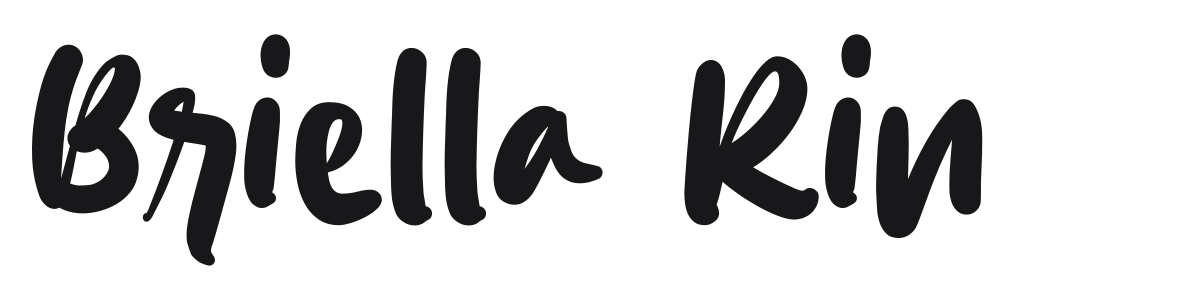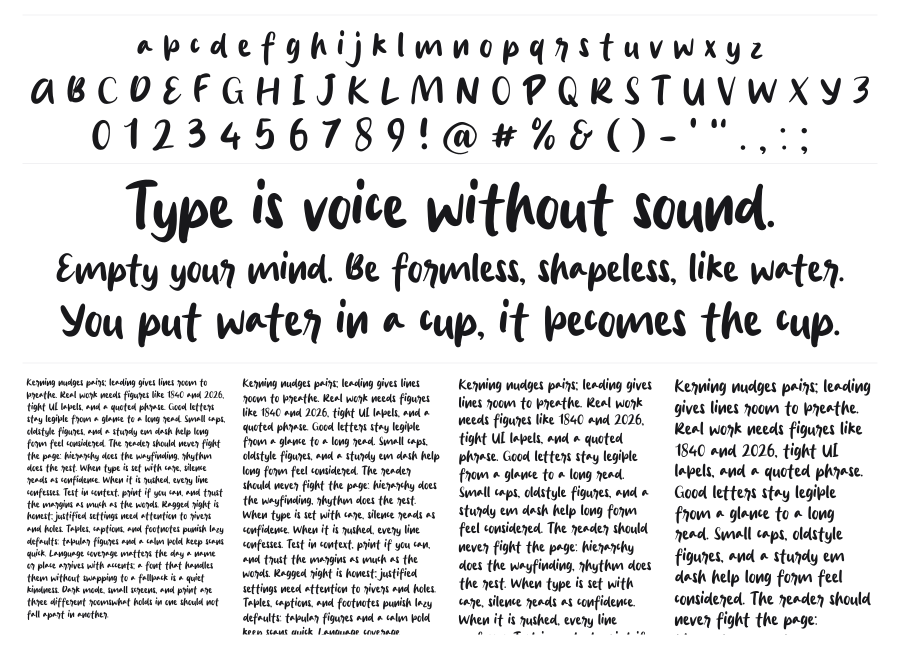
Briella Rin
Briella Rin is a bold casual brush script with a lively, hand-lettered energy. Thick downstrokes taper into fluid connecting strokes, giving the writing a natural, spontaneous rhythm without feeling sloppy. It works best large, where the contrast between brushed weight and thin joins really comes alive.